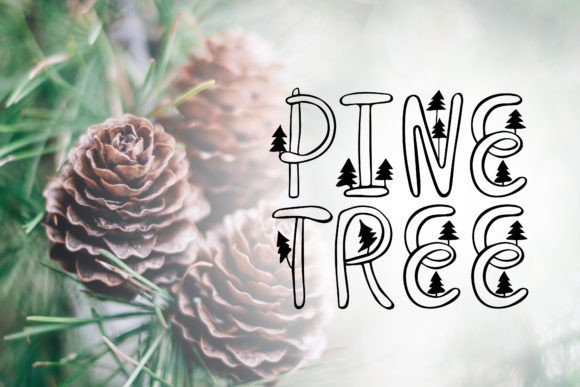
Journey into the enchanting world of Pinetree Font, where creativity flourishes amidst the splendor of nature. This captivating decorative font boasts characters adorned with flourishing pine trees, inviting you to craft captivating designs that resonate with the beauty of the outdoors.
Step into a realm of endless possibilities, where Pinetree Font transforms your digital creations into breathtaking masterpieces. Its intricate details and flowing lines bring a touch of elegance and whimsy to your projects, making them stand out from the ordinary and captivating audiences with their unique charm.
With Pinetree Font at your fingertips, unleash your imagination and embark on a creative odyssey. Craft enchanting greeting cards that carry heartfelt messages, adorned with delicate pine tree motifs that add a personal touch to every word. Create posters that burst with vibrancy, featuring eye-catching headlines and captivating text that draws attention and leaves a lasting impression.
Harness the power of Pinetree Font to elevate your social media presence, crafting posts and stories that captivate your audience with their visual allure. Engage your followers with captivating images and quotes, beautifully rendered with Pinetree Font, leaving them spellbound and eager for more.
Extend the magic of Pinetree Font to the tangible world by creating print-on products that radiate with charm and individuality. Design mugs that evoke a sense of tranquility with their nature-inspired motifs, or create shirts that embody the spirit of adventure with captivating pine tree designs. With Pinetree Font, your creations transcend the digital realm and become tangible expressions of your creativity.